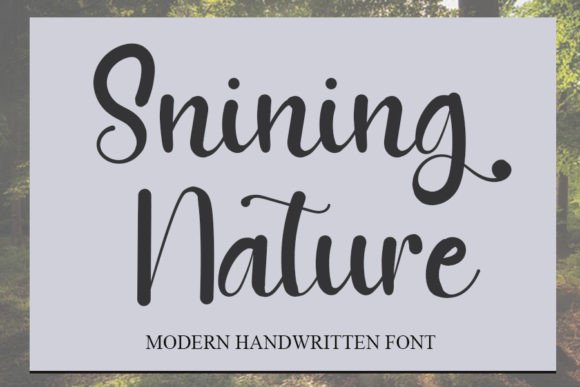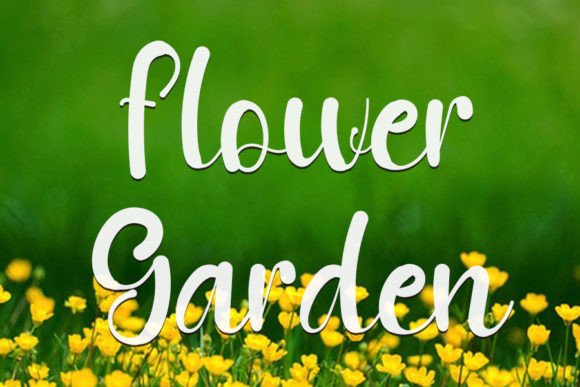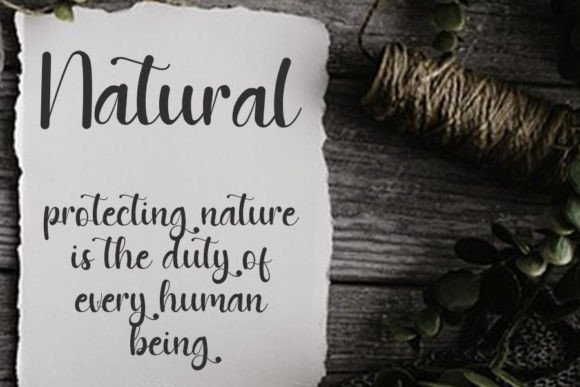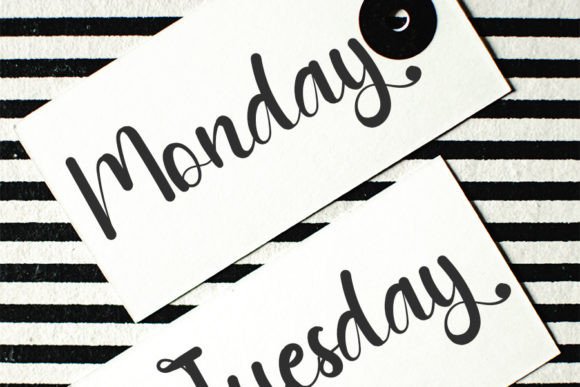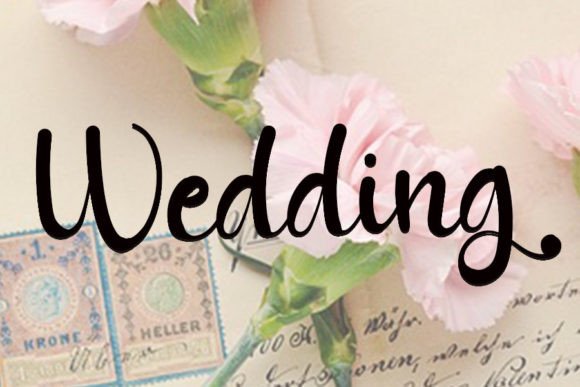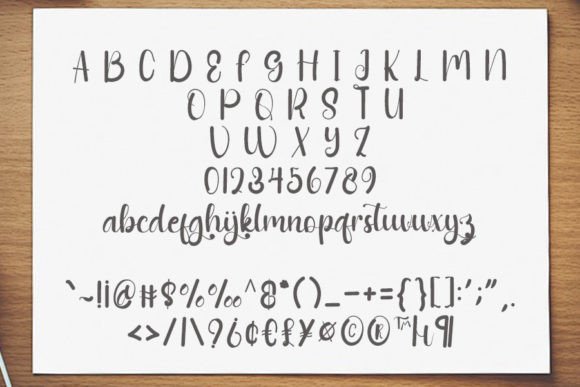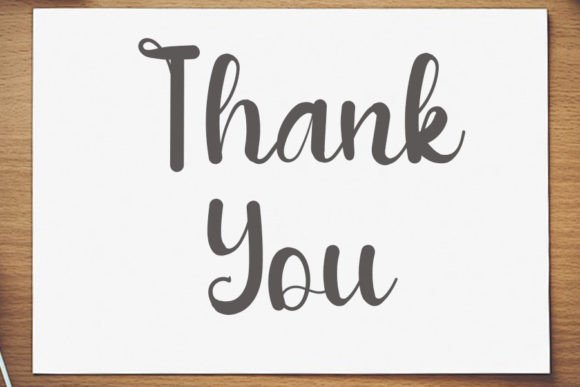
Shining Nature Font
The Shining Nature Font Download is a cool handwritten script that captures the balance of modern design and classic calligraphy. With strokes that are not too thin and not too thick, this font maintains a clean, polished form that enhances any creative project. Whether for invitations, posters, or branding, Shining Nature delivers elegance with a modern twist.
A Modern Handwritten Script with Timeless Appeal
Shining Nature combines the authenticity of handwritten type with the sophistication of calligraphy. Unlike plain fonts, this Shining Nature script font feels expressive and stylish, making it an excellent option for projects that require professionalism with personality. As a result, it works seamlessly across both print and digital mediums.
Perfect for Invitations and Stationery
Event designs always shine brighter with handwritten fonts. The Shining Nature Font is perfect for wedding invitations, greeting cards, thank you notes, and personalized stationery. Moreover, its balanced rhythm ensures that text looks both elegant and approachable.
Branding and Logo Design with Shining Nature Font
Typography defines the strength of a brand’s identity. The Shining Nature handwritten font is an outstanding choice for boutique logos, product packaging, and promotional materials. In addition, its graceful handwritten strokes help businesses communicate sophistication while remaining modern.
Posters, Titles, and Editorial Projects
The Shining Nature Font Download works wonderfully in posters, banners, and magazine titles. Therefore, it adapts well to both small and large-scale applications, ensuring clarity while preserving its elegant handwritten character.
In the digital space, fonts must be versatile and eye-catching. The Shining Nature typeface integrates seamlessly into Instagram posts, Pinterest graphics, YouTube thumbnails, and blogs. Its cool handwritten style ensures that digital content looks polished and creative.
Why Designers Choose Shining Nature Typeface
Designers value fonts that balance beauty with usability. Many handwritten scripts can feel too decorative, but the Shining Nature handwritten script keeps its modern flow while staying highly legible. This makes it a dependable tool for professionals and creatives alike.